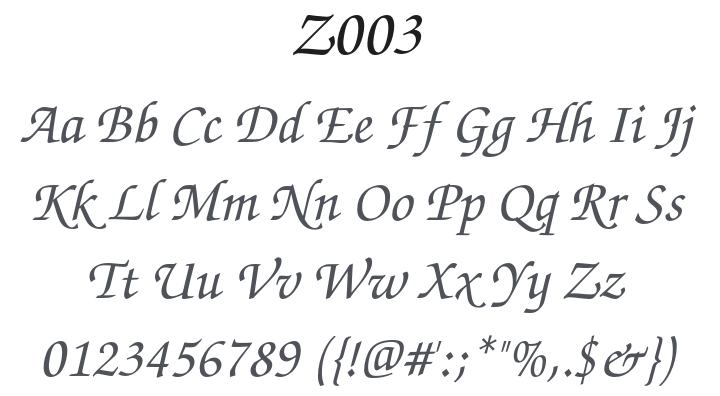
Z003 Font
by URW++
About Z003
Z003 is a calligraphic italic typeface from URW++ and part of the URW Base35 open-source font package, covering 35 metrically compatible PostScript Level 2 core fonts. It targets ITC Zapf Chancery, the elegant script designed by Hermann Zapf, and brings its flowing, pen-drawn letterforms to invitations, certificates, headings, and decorative text where a formal yet graceful hand-lettered quality is desired.